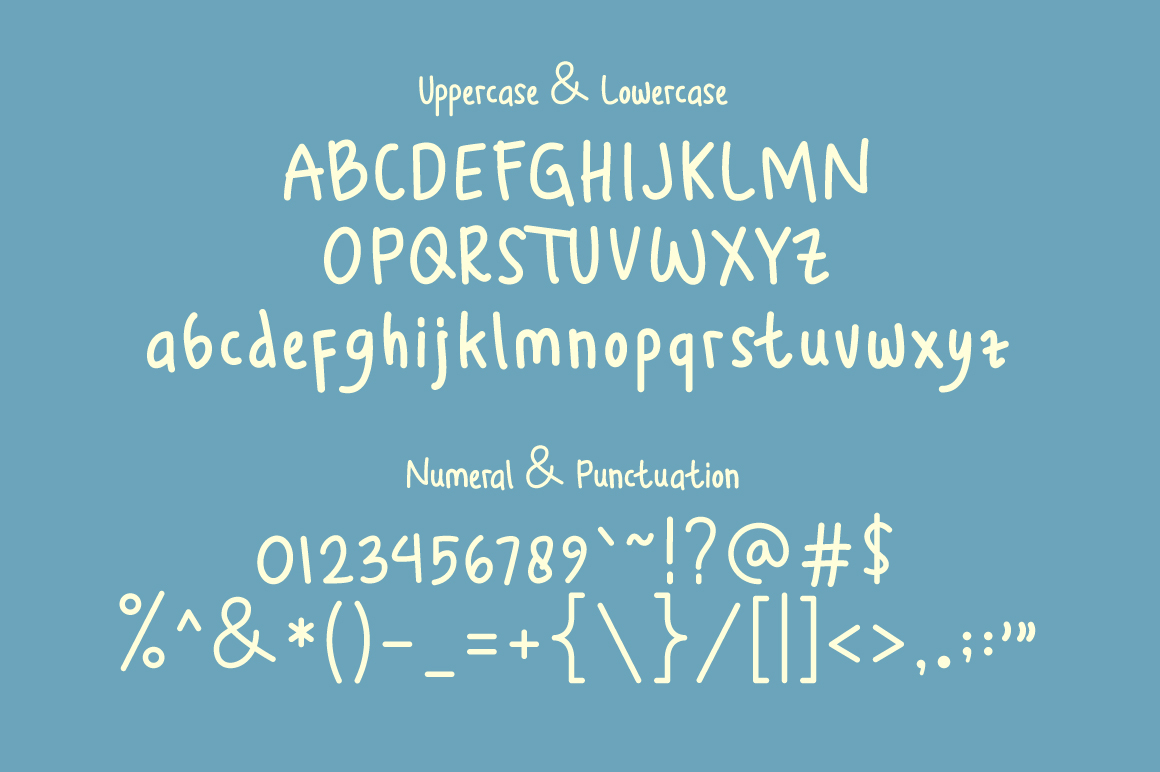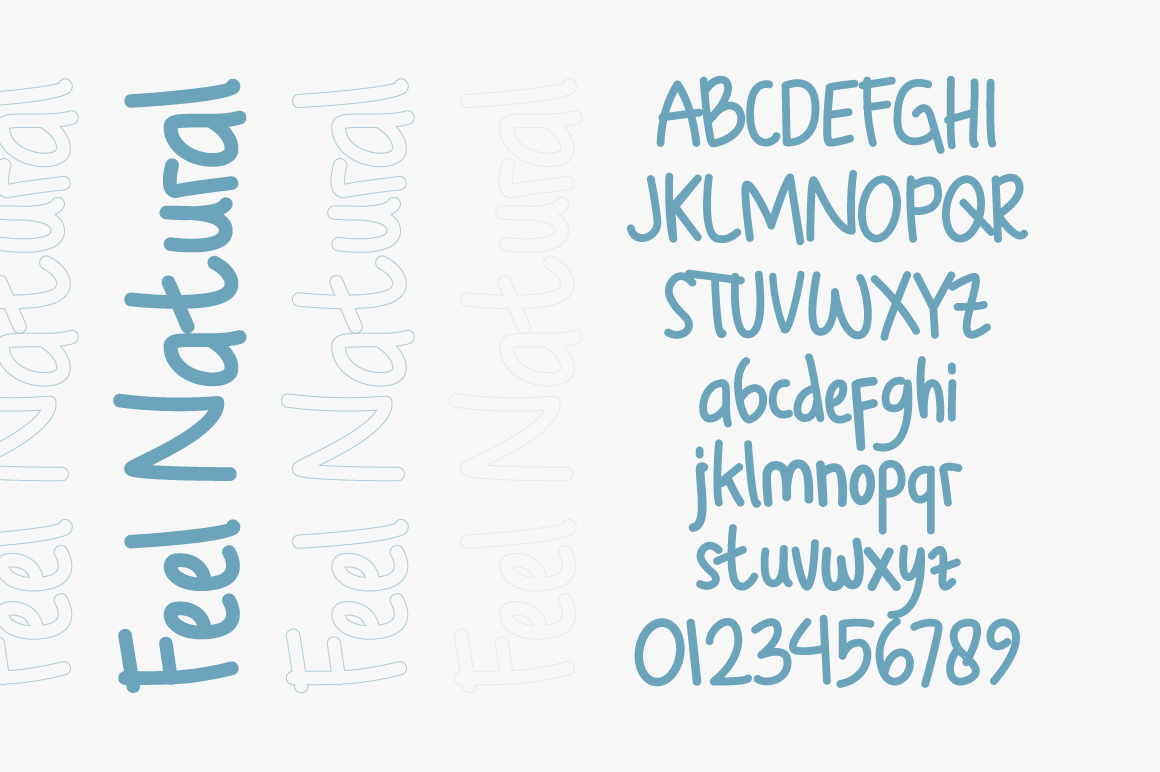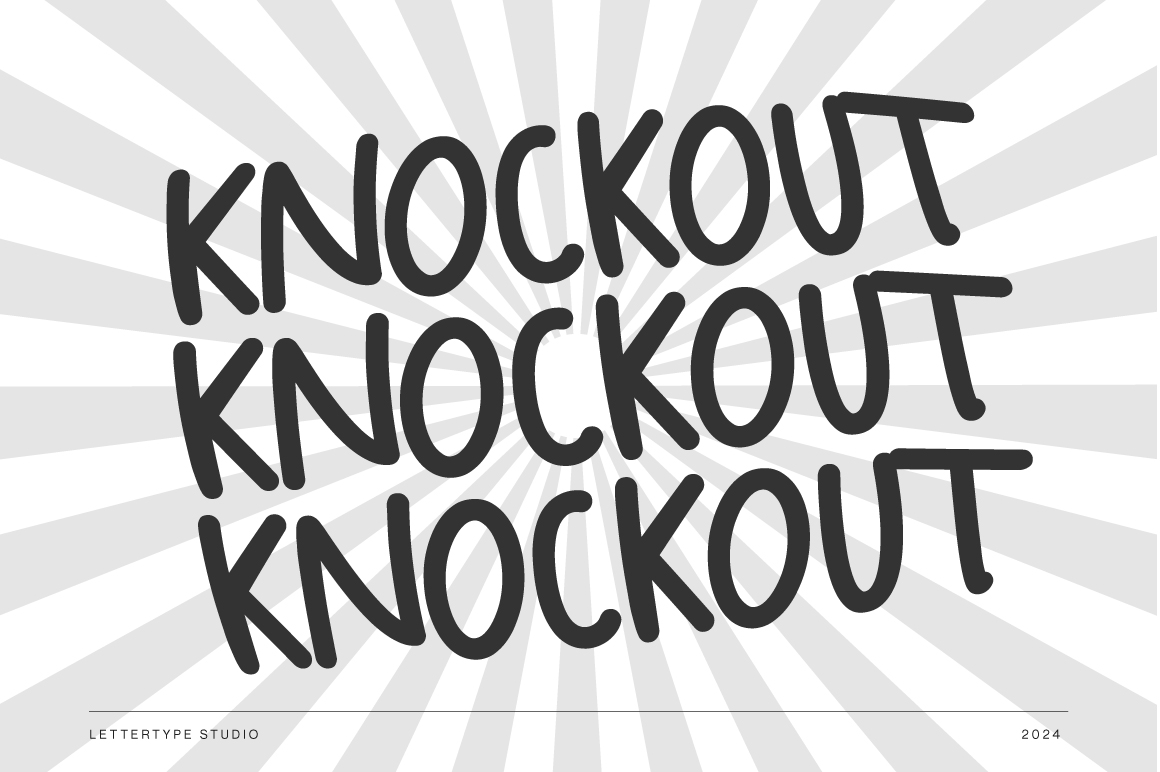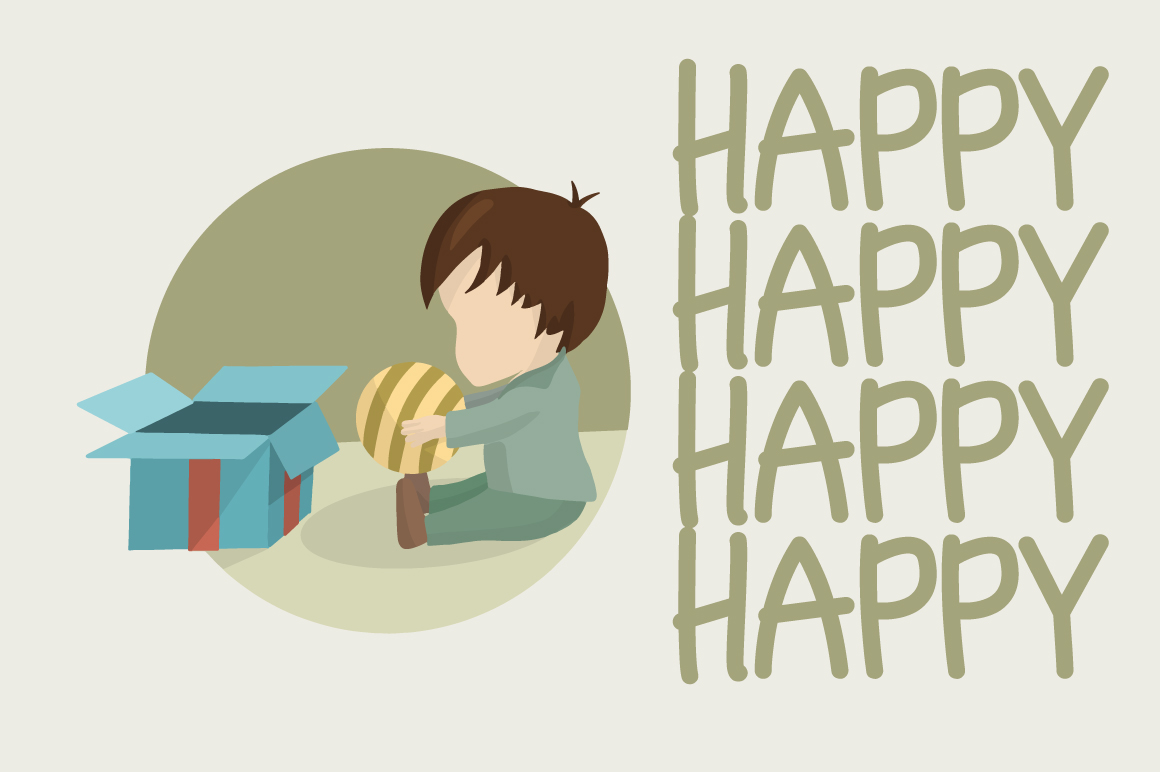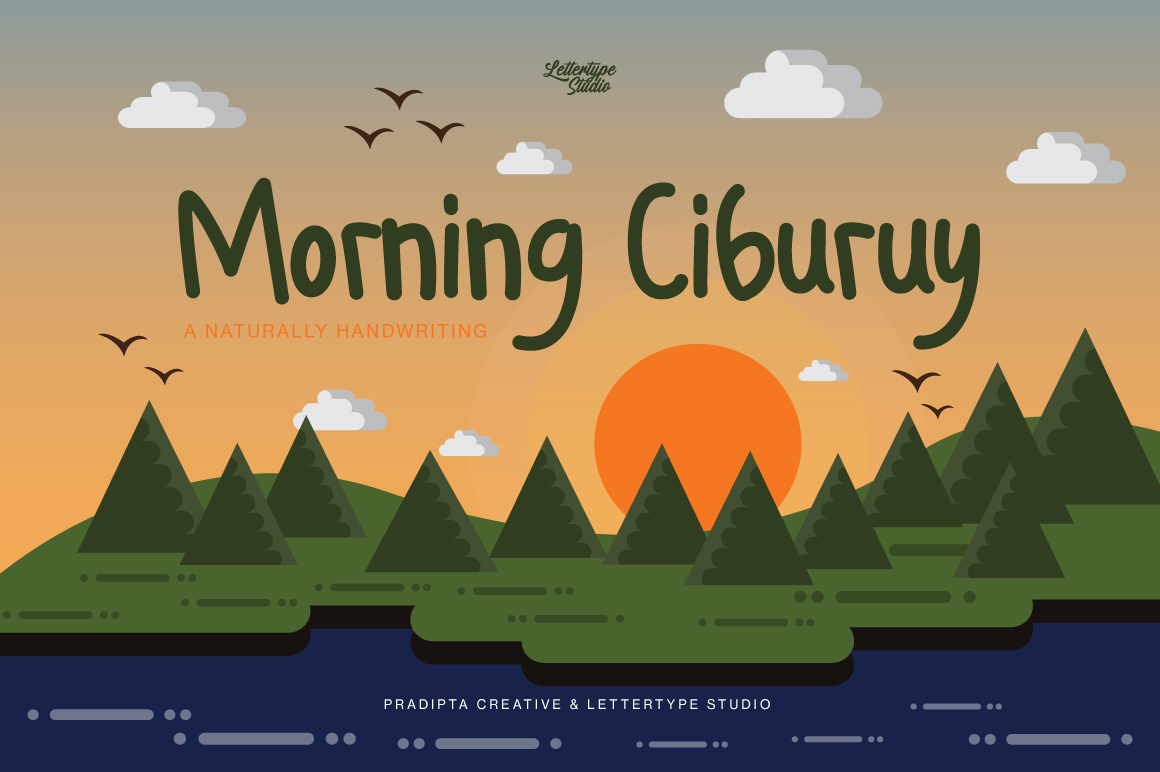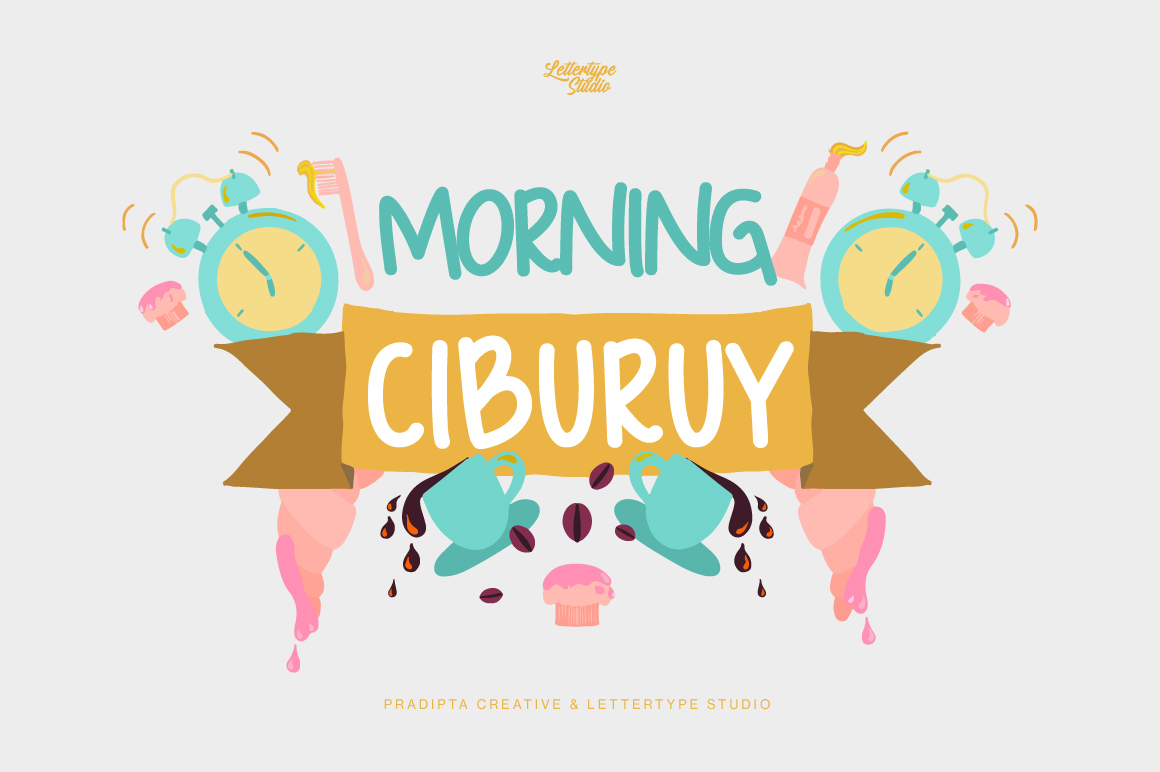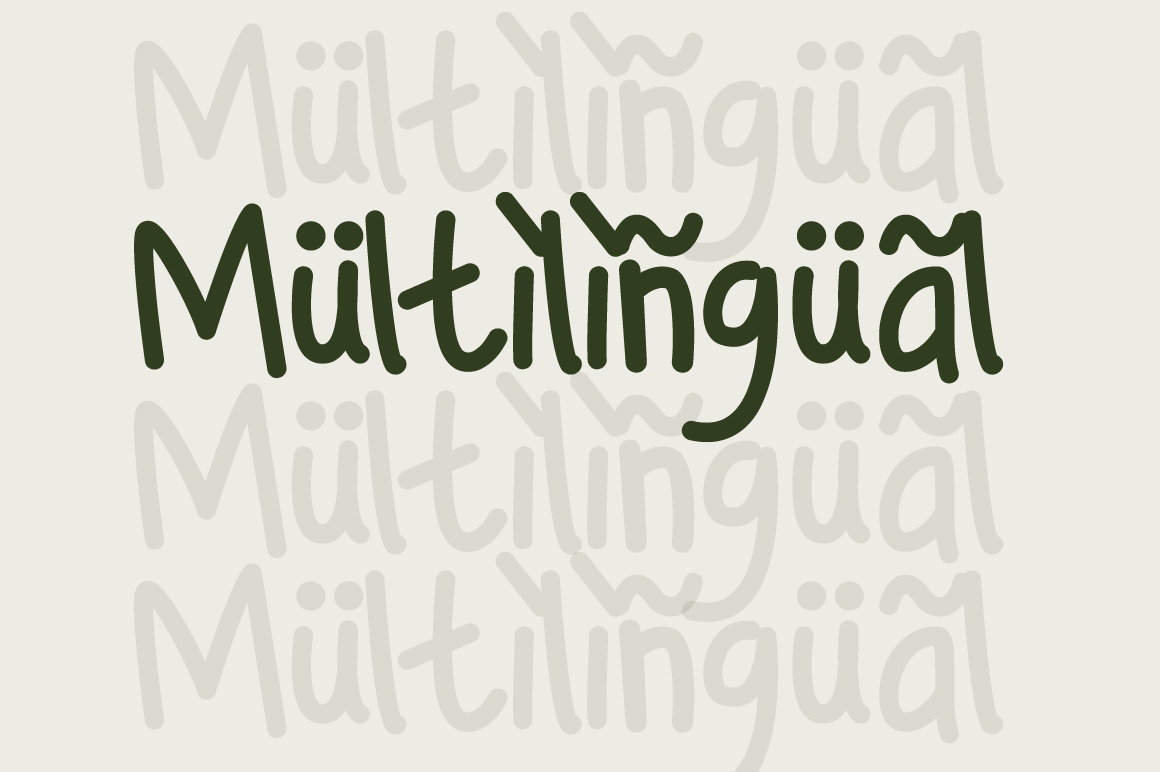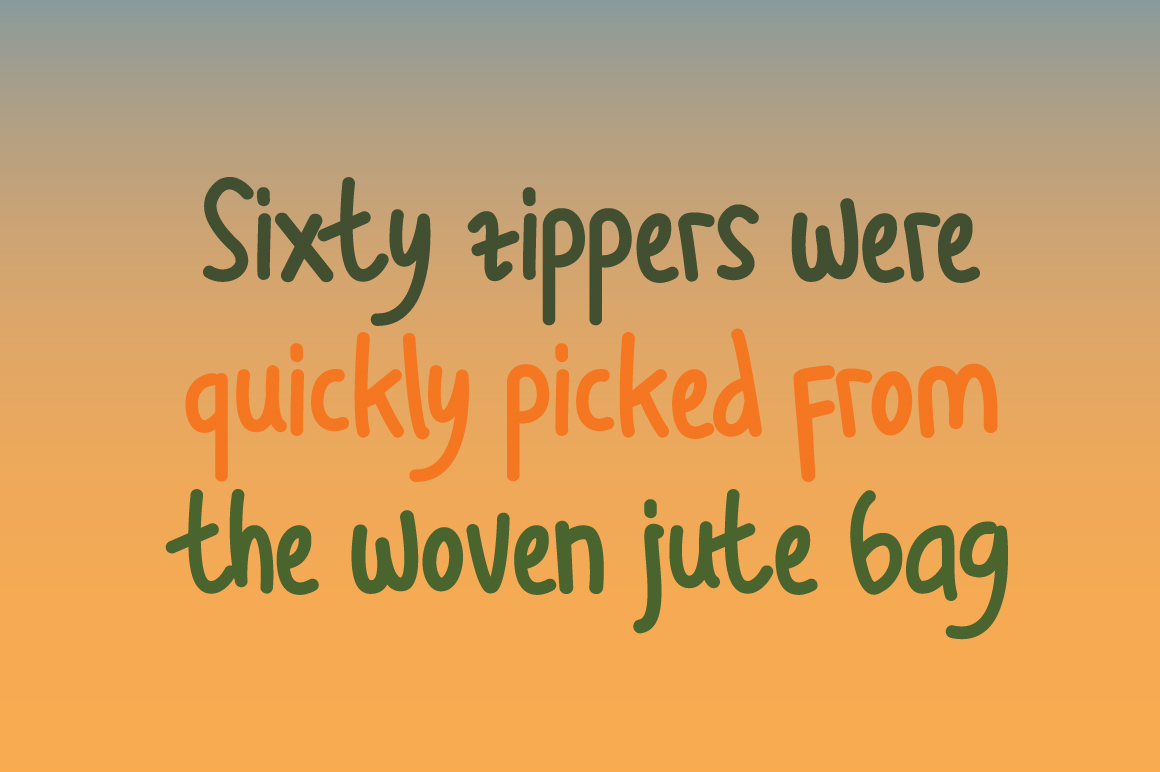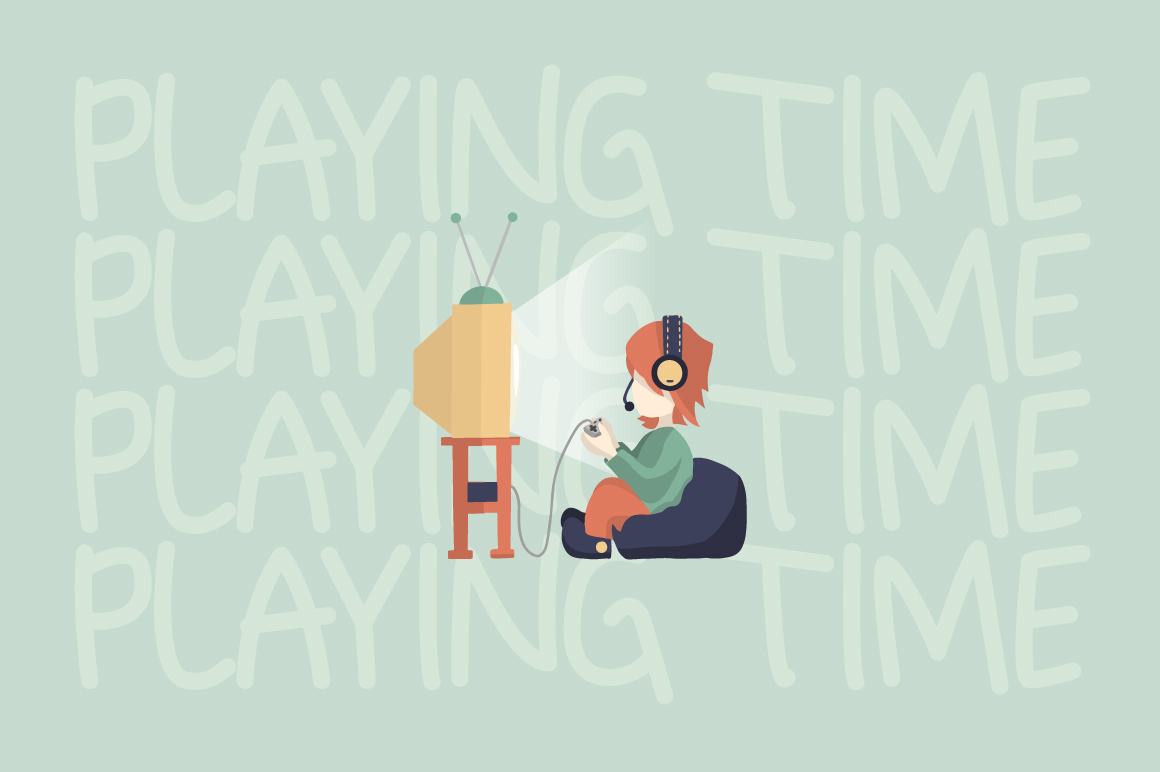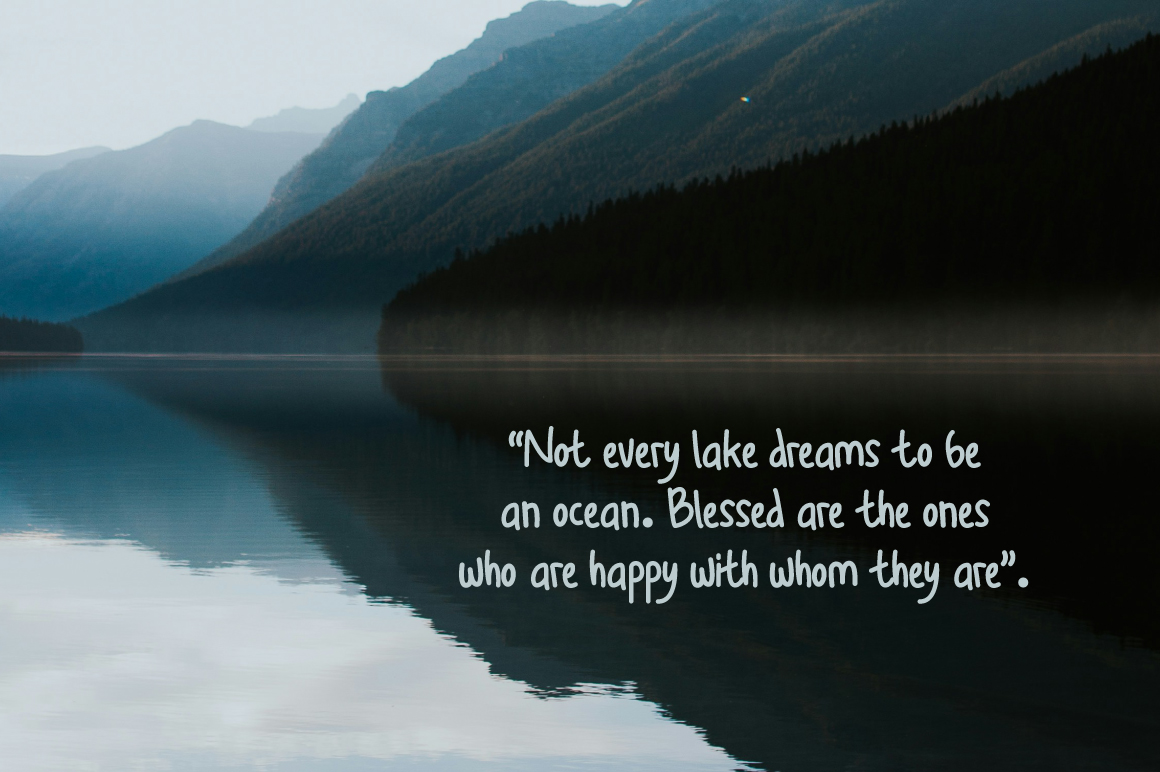
Morning Ciburuy - Regular
Morning Ciburuy - SemiBold
Morning Ciburuy - Bold
Morning Ciburuy is a natural handwritten display font inspired by the carefree spirit of children’s handwriting. With a friendly and organic flow, this typeface captures a playful personality that adds warmth and creativity to any design.
Perfect for logos, posters, book covers, packaging, and social media visuals, Morning Ciburuy brings an authentic human touch to modern branding. Featuring multiple weights, ligatures, and alternates, it’s a versatile font family that balances fun energy with professional quality.
• Lowercase & Uppercase
• Numerals & Punctuation
• Alternates & Ligature
• Multilingual Support
• 3 Styles Font Family (normal, semibold, & bold)